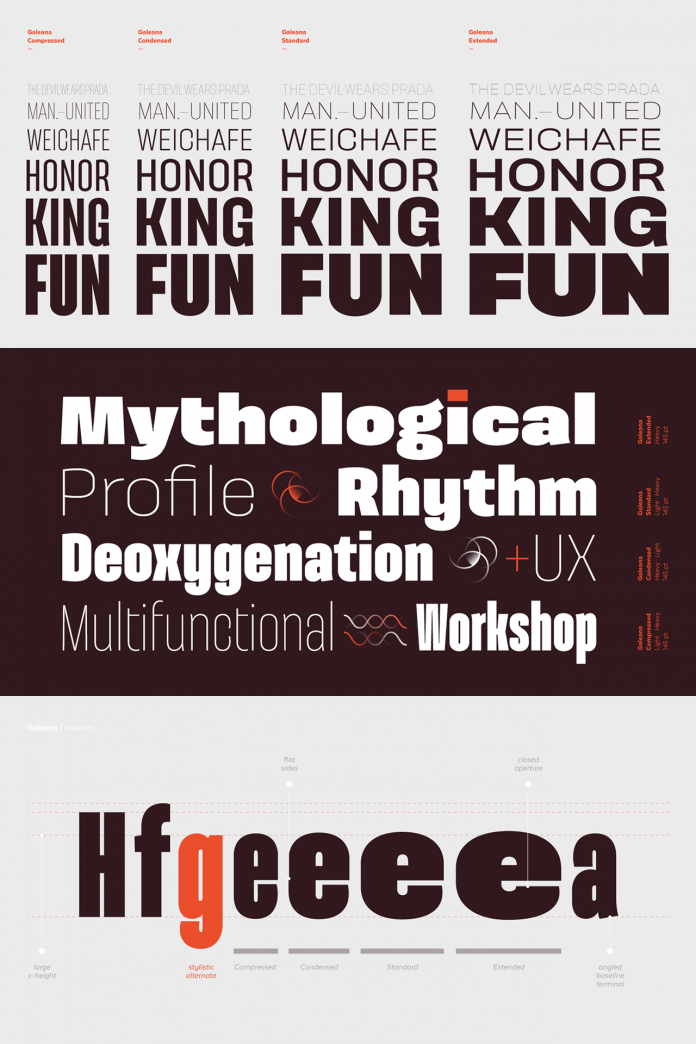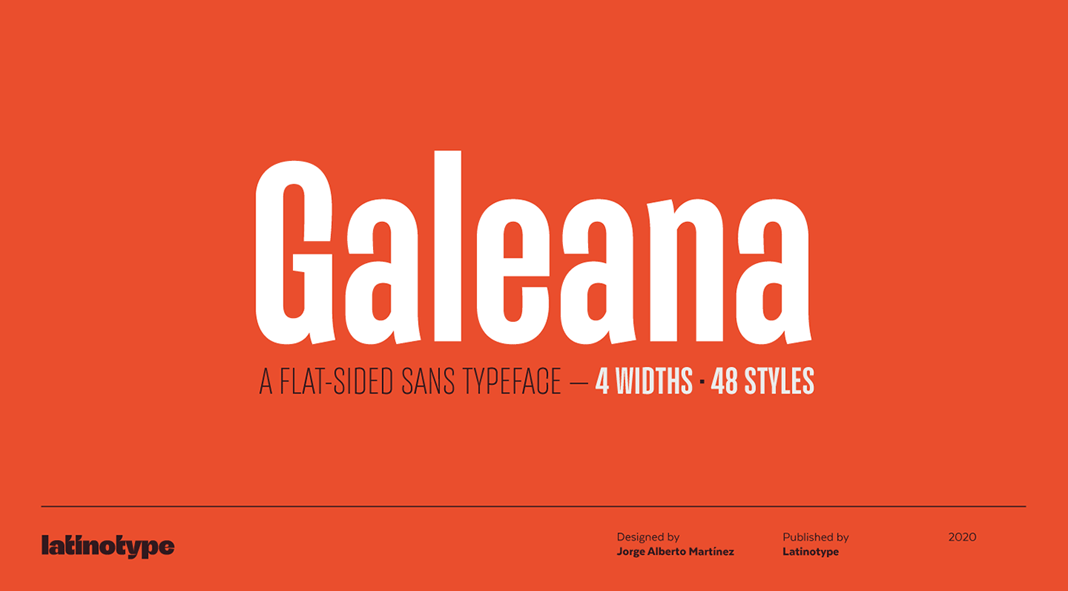
Galeana, a flat-sided sans serif font family with closed apertures.
The team of type foundry Latinotype just released another unique font family! Galeana has been designed by Jorge Alberto Martínez with the aim to create a reinterpretation of Latin American-flavored typefaces used for European editorial designs such as Plastique and Zembla magazines. The Galeana font family is based on a flat-sided sans serif typeface that features a closed aperture. This superfamily comprises 4 sub-families including Compressed, Condensed, Standard, and Extended. Learn more below or download the entire family as a heavily discounted introductory offer at MyFonts.
The Galeana font family consists of 48 styles. The big character set supports more than 200 Latin-based languages. The fonts perform well in mid-length text sections. They are well suited for headlines, editorial design, branding projects, advertising, social media, etc.
The heaviest and narrowest variants have been created at the early stage of the design process in order to resemble the slender trunks of the Galenas (African tulip trees). The other variants offer an extended width, which evokes the broad crown shape of these trees. For further information about all typographic features, just click on the link below. As already mentioned before, the complete family is currently available as an introductory offer at MyFonts.